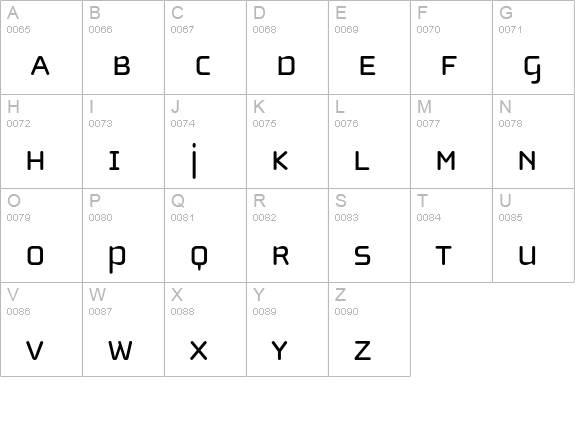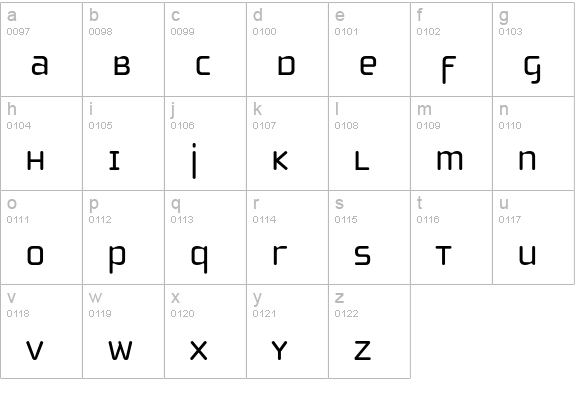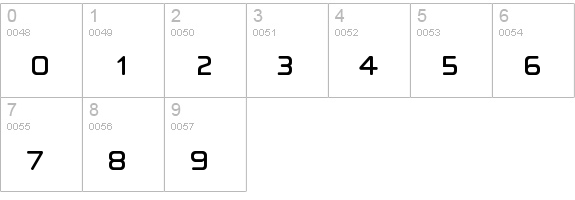
ChollaUnicase Font Details
ChollaUnicase font is a unique and modern typeface that seamlessly blends uppercase and lowercase letters for a stylish and versatile look. With its sleek and contemporary design, ChollaUnicase is perfect for adding a touch of sophistication to your projects. This font is ideal for branding, logos, headlines, and more, making it a must-have in any designer's toolkit. Best of all, ChollaUnicase is available for free download at FontsMarket.com. Simply visit the website to get your hands on this high-quality font and start using it in your designs today. Don't miss out on the opportunity to elevate your projects with the elegant and eye-catching ChollaUnicase font – download it now and let your creativity shine!